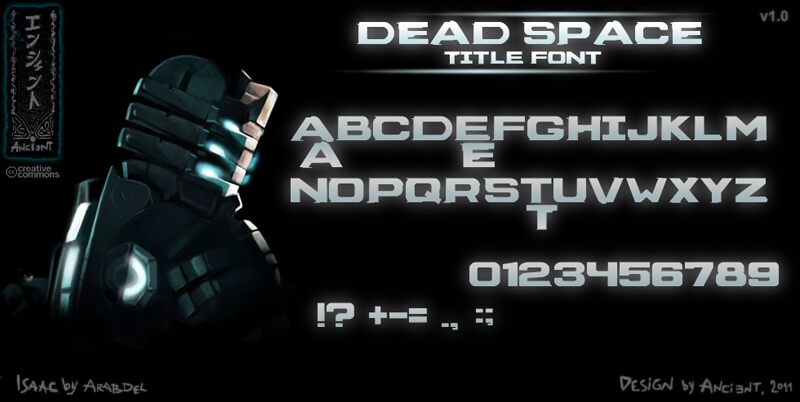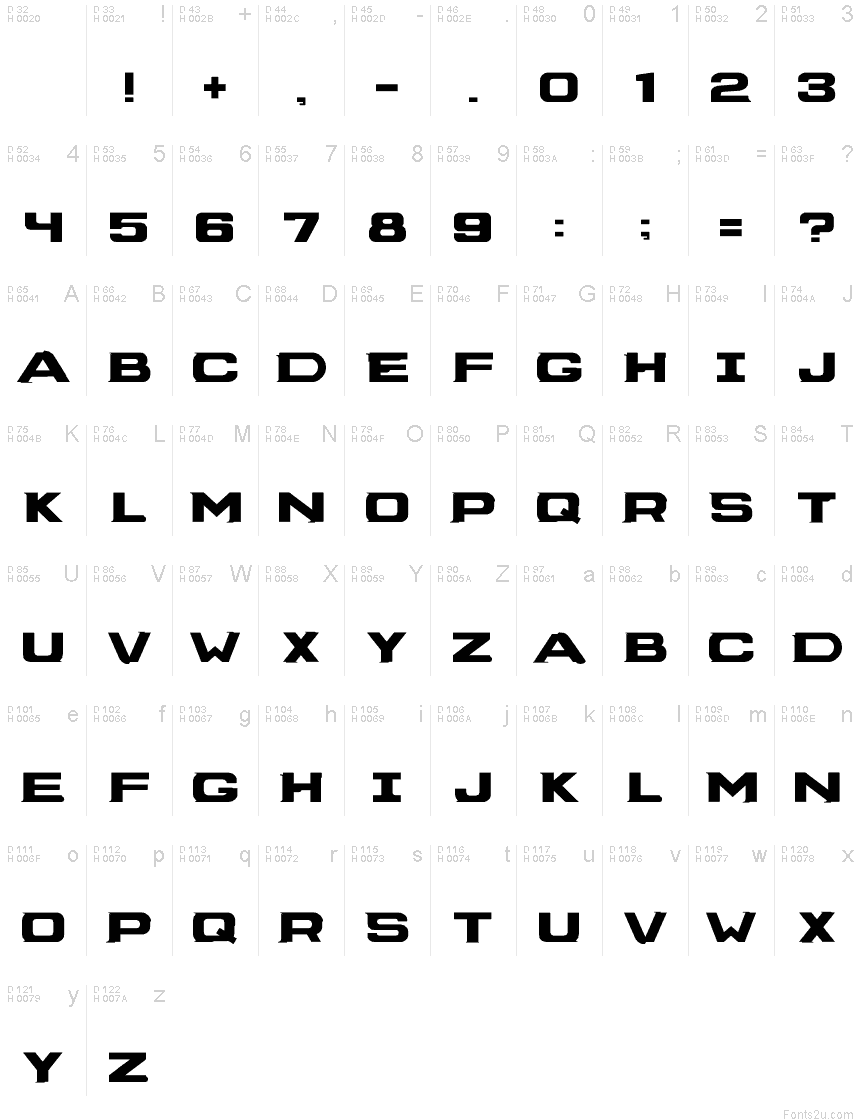
Dead Space Box Art by Ancient is a free futuristic display font with broad, industrial capitals. Sharp wedges, squared curves, and geometric cutouts give the lettering a spacecraft-hull severity, reinforced by its wide proportions.
Game packaging is its clearest home, especially for science-fiction or survival-horror themes, and the mechanical weight suits film posters and esports branding. In publishing, it can turn a cover line into part of the imagined machinery rather than neutral editorial type.
This font is used on the box cover, in the in-game title screen, and in the film Dead Space: Aftermath.